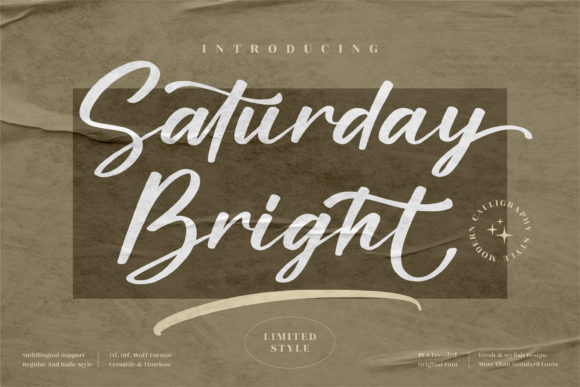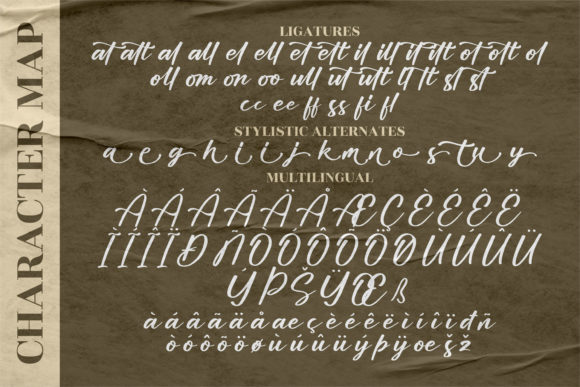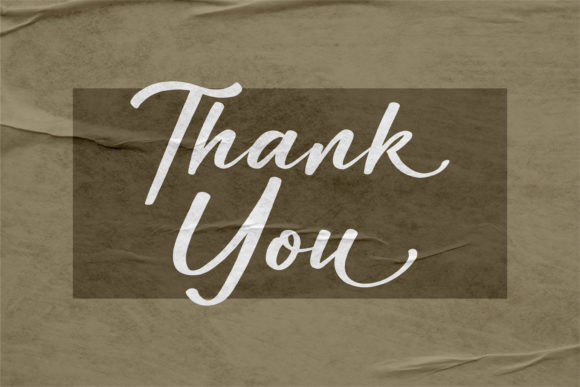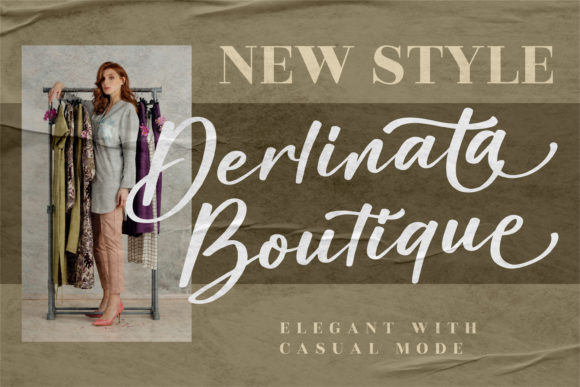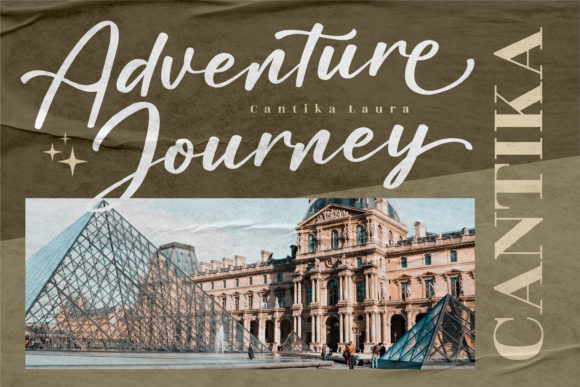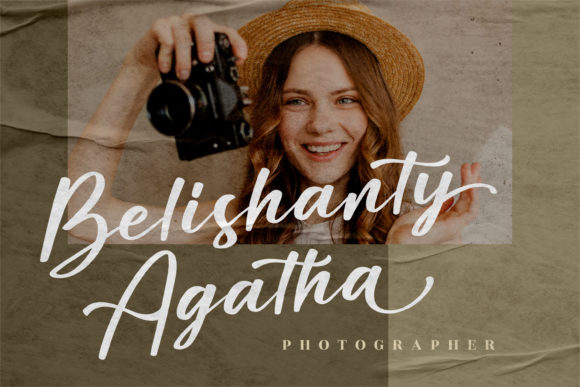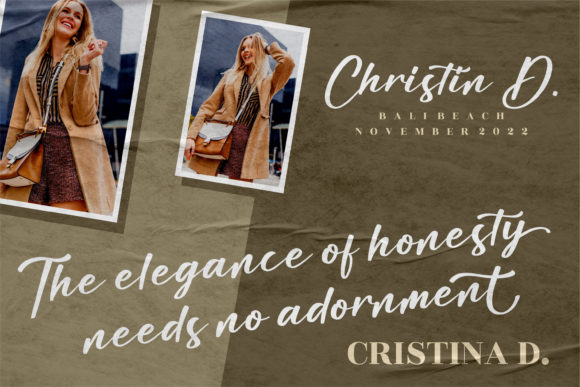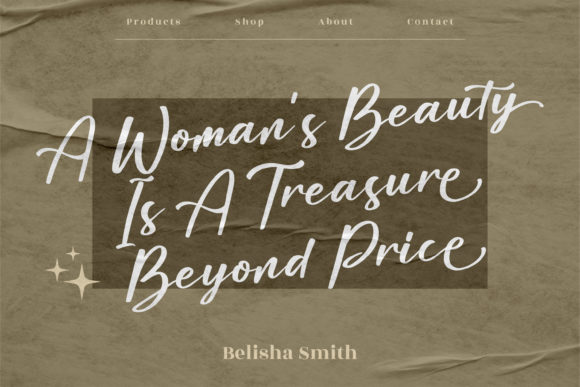
Saturday Bright Font
About Saturday Bright Font
Saturday Bright is a lovely and delicate script font that exudes elegance and class. This font was particularly crafted for those who need a beautiful and refreshing look to their designs. Saturday Bright is PUA encoded which means you can access all glyphs and swashes with ease!